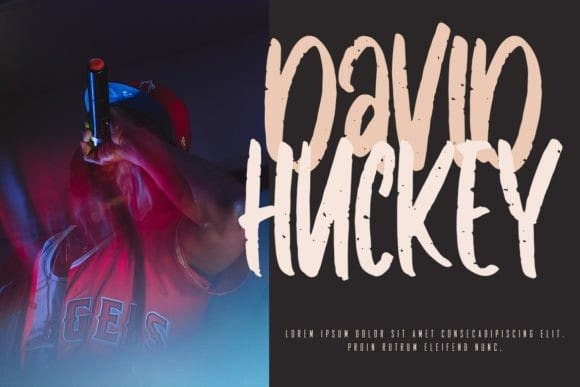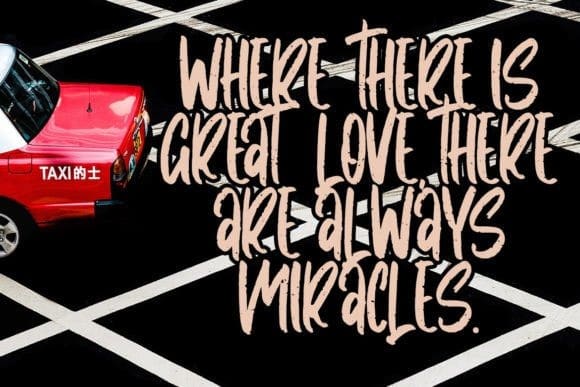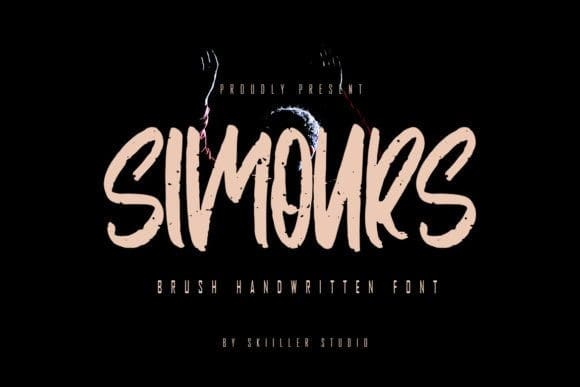
Simours Brush Font
Simours Brush Font is a modern and stylish textured font. Perfect for adding a confident touch to your designs, this font will give your projects an eye-catching and inviting look. Create stunning, hand-lettered designs with ease.